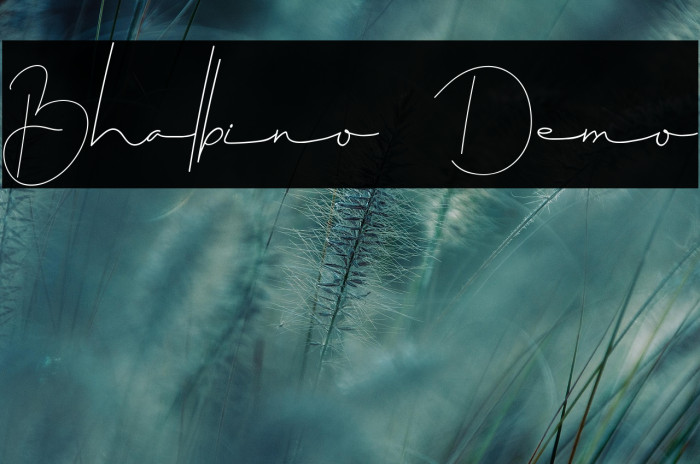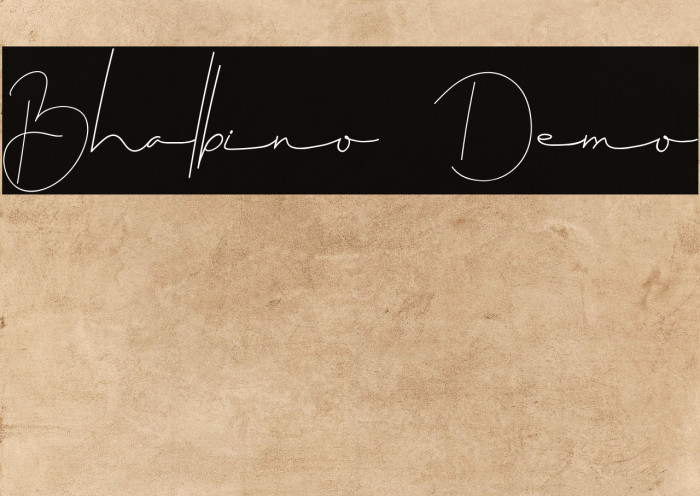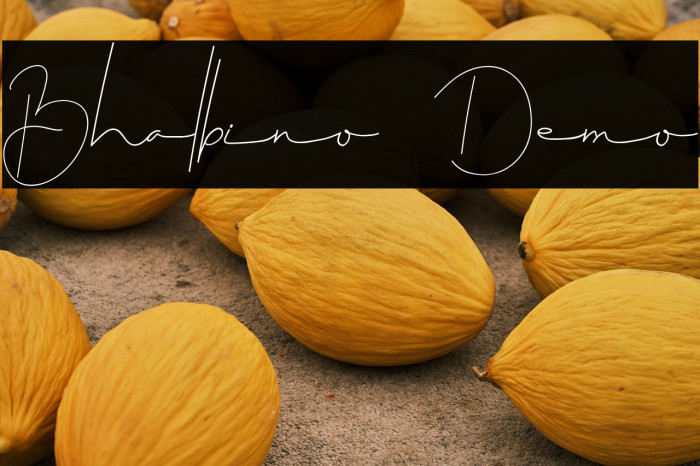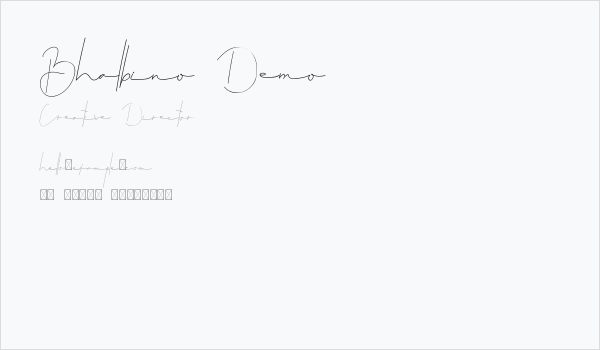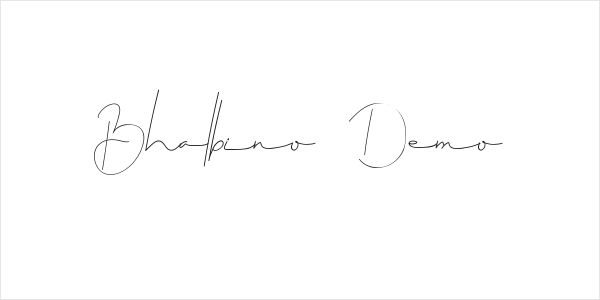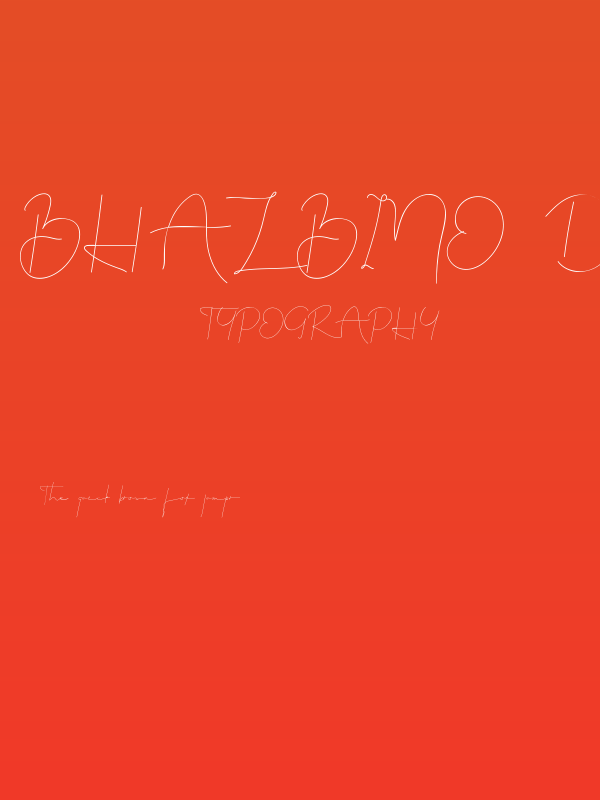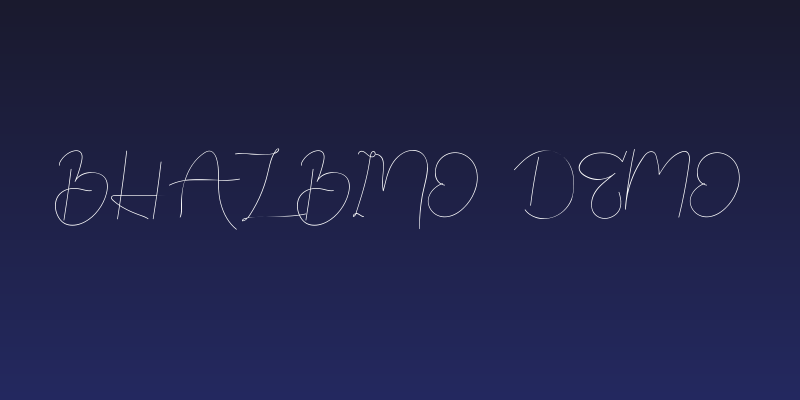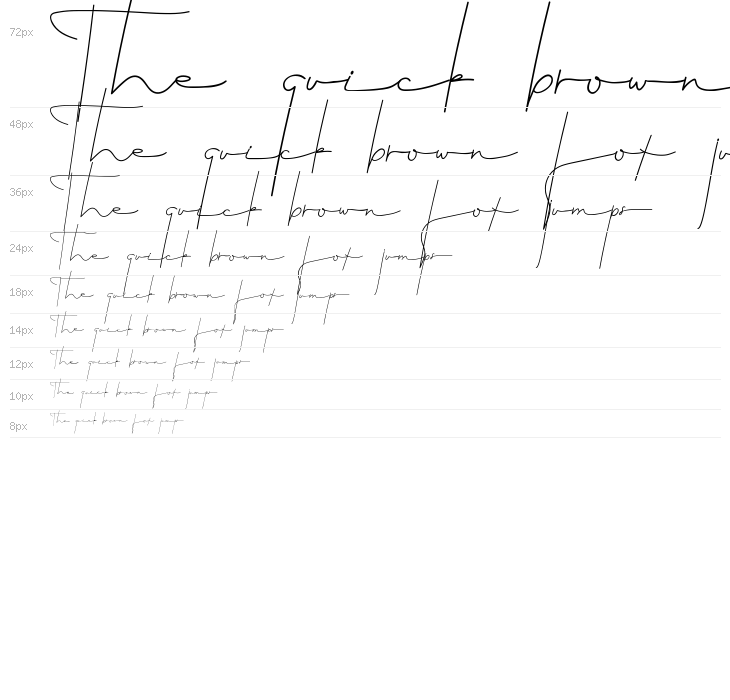
Bhalbino Demo Font
Bhalbino Demo Description
This font features a delicate and flowing script style, characterized by its thin, elegant lines and graceful curves. The uppercase letters exhibit a sense of fluidity and movement, while the lowercase letters maintain a consistent, airy appearance. The overall design is reminiscent of handwritten calligraphy, with a modern twist that adds a touch of sophistication. The numerals and special characters are seamlessly integrated, maintaining the font's cohesive aesthetic. This font's unique style makes it suitable for projects that require a personal, artistic touch.
| Proposed Projects | Ideal for wedding invitations, personal branding, artistic projects, and elegant stationery. |